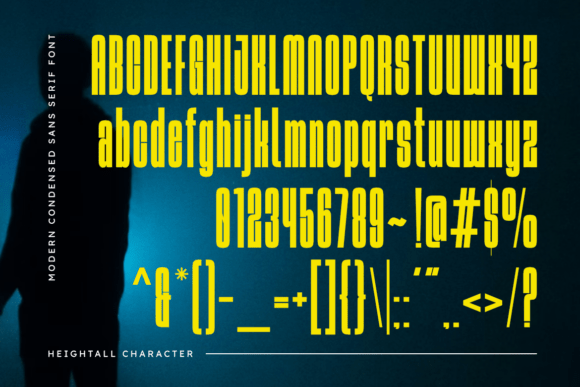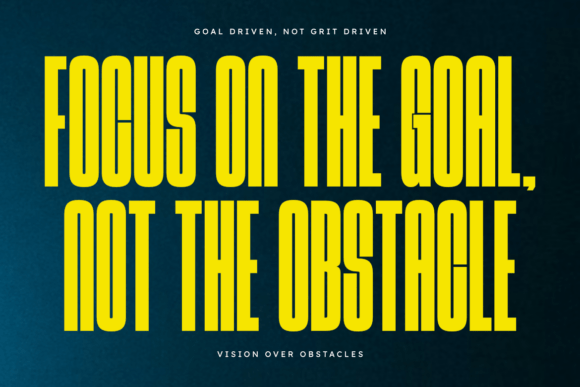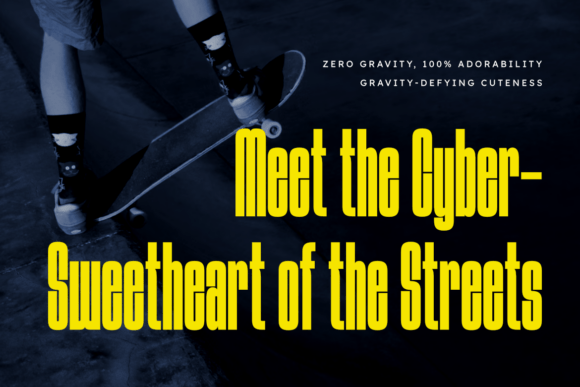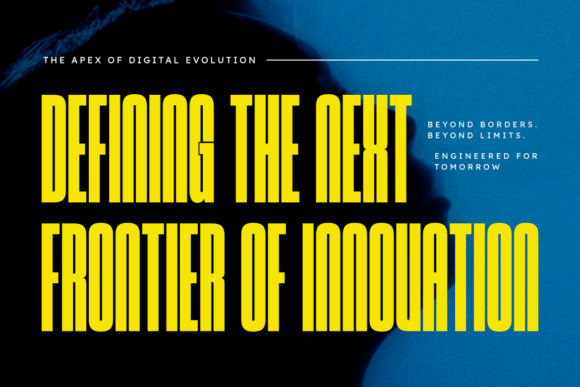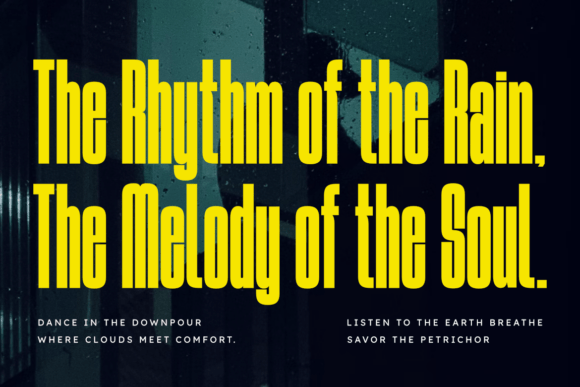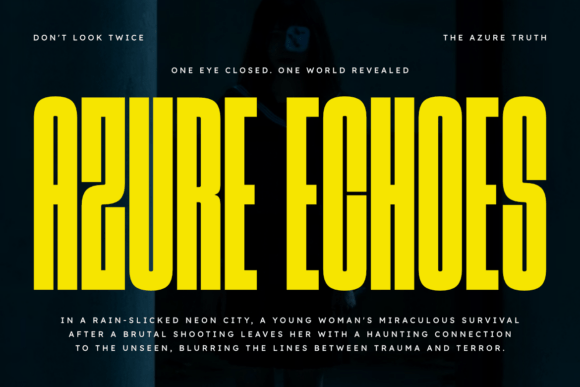
Introducing Heightall Font: The Ultimate Choice for Impactful Typography
In the world of typography, a font can make or break the visual appeal of a design. For designers and crafters looking to make a bold statement, Heightall Font is the perfect solution. This bold and ultra-condensed sans serif font is specifically designed for impactful typography, making it an ideal choice for strong headlines, modern posters, album covers, sports graphics, branding, and high-impact advertising.
Key Features of Heightall Font
- Tall and Compact Structure: Heightall Font boasts a tall structure and compact width, allowing you to create striking visuals that grab attention.
- Clean and Confident Design: The font’s clean and confident design gives your visuals a professional look, making it perfect for branding and advertising.
- Ultra-Condensed: With its ultra-condensed width, Heightall Font allows you to fit more text into a smaller space, making it ideal for posters, album covers, and sports graphics.
- Bold and Eye-Catching: The bold design of Heightall Font ensures that your message stands out, making it perfect for headlines, titles, and high-impact advertising.
Heightall Font is a versatile font that can be used for a wide range of design projects. Whether you’re a designer looking to create striking visuals or a crafter looking to add a professional touch to your work, Heightall Font is the perfect choice. Its clean and confident design makes it suitable for:
- Strong Headlines: Create bold and eye-catching headlines that grab attention.
- Modern Posters: Design modern posters that stand out with Heightall Font’s tall and compact structure.
- Album Covers: Add a professional touch to your album covers with Heightall Font’s clean and confident design.
- Sports Graphics: Create striking sports graphics that showcase your team’s spirit and energy.
- Branding: Establish a strong brand identity with Heightall Font’s bold and eye-catching design.
- High-Impact Advertising: Create high-impact ads that grab attention and drive results.
Why Choose Heightall Font?
With so many fonts available, why choose Heightall Font? Here are just a few reasons:
- Unique Design: Heightall Font’s unique design sets it apart from other fonts, making it a standout choice for designers and crafters.
- Versatility: Heightall Font can be used for a wide range of design projects, making it a versatile addition to your font library.
- Professional Look: The font’s clean and confident design gives your visuals a professional look, making it perfect for branding and advertising.
- Easy to Read: Despite its bold design, Heightall Font is easy to read, making it perfect for headlines, titles, and high-impact advertising.
Tips for Using Heightall Font
To get the most out of Heightall Font, here are a few tips:
- Use it for Headlines: Heightall Font is perfect for headlines, titles, and high-impact advertising.
- Experiment with Colors: Try out different colors to see what works best with Heightall Font.
- Pair it with Other Fonts: Experiment with pairing Heightall Font with other fonts to create a unique look.
- Use it for Branding: Establish a strong brand identity with Heightall Font’s bold and eye-catching design.
In conclusion, Heightall Font is a bold and ultra-condensed sans serif font designed for impactful typography. With its tall structure and compact width, this font is perfect for strong headlines, modern posters, album covers, sports graphics, branding, and high-impact advertising. Its clean and confident design gives your visuals a striking and professional look, making it a must-have for designers and crafters. So why wait? Download Heightall Font today and take your designs to the next level!